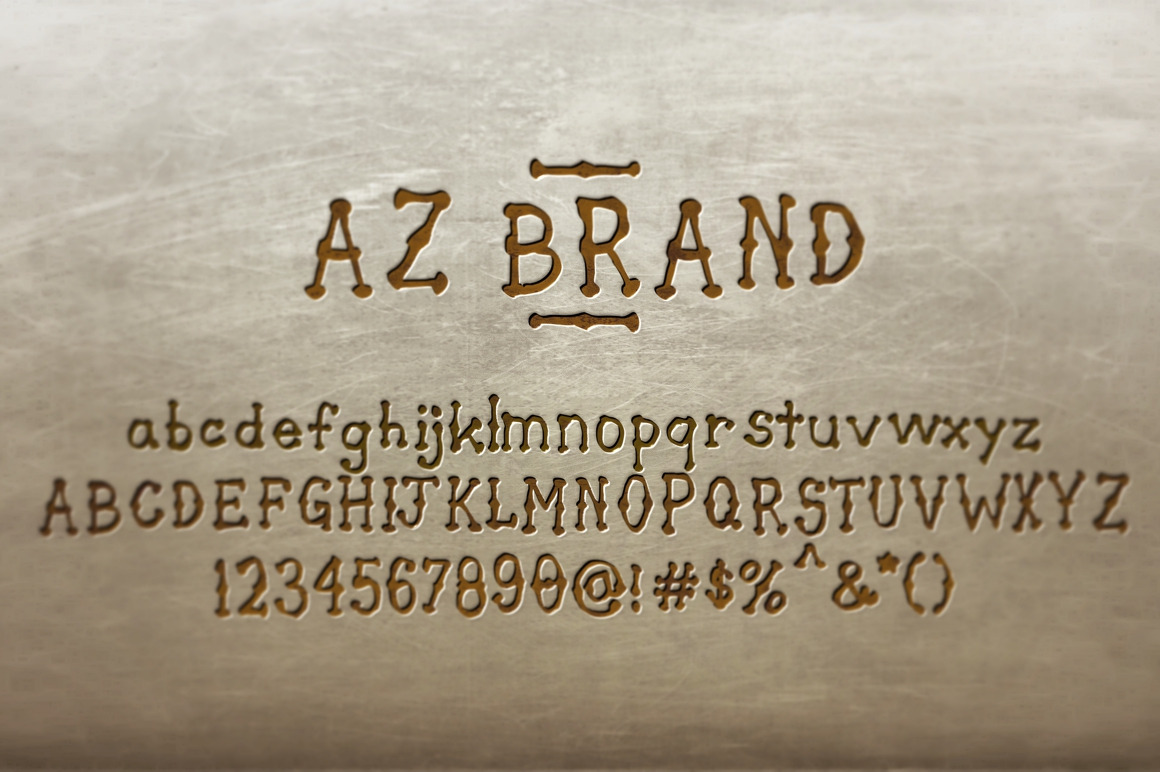
AZ Brand Opentype Font
AZ Brand was inspired from a need to develop a display typeface with a hand drawn feel to it. This font was designed for use as a fun bold headline or sub headline.